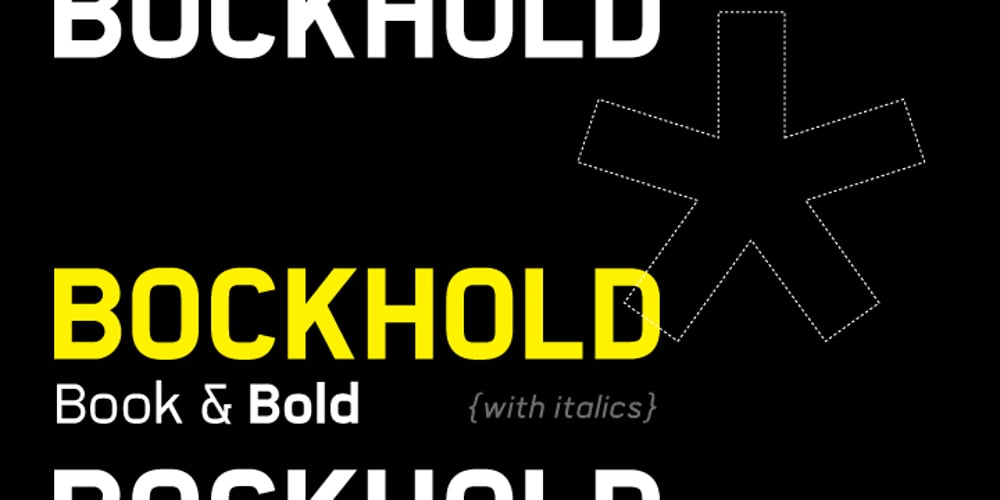
Bockhold
Bockhold font
Bockhold Font Family was designed by Richard D. Granados and published by Stereo Type Haus. Bockhold contains 4 styles and family package options. Influenced by the classic German industrial typeface DIN, Bockhold strays from the grid system and into humanist nuances. The family consists of two weights with matching italics, making a total of four fonts.